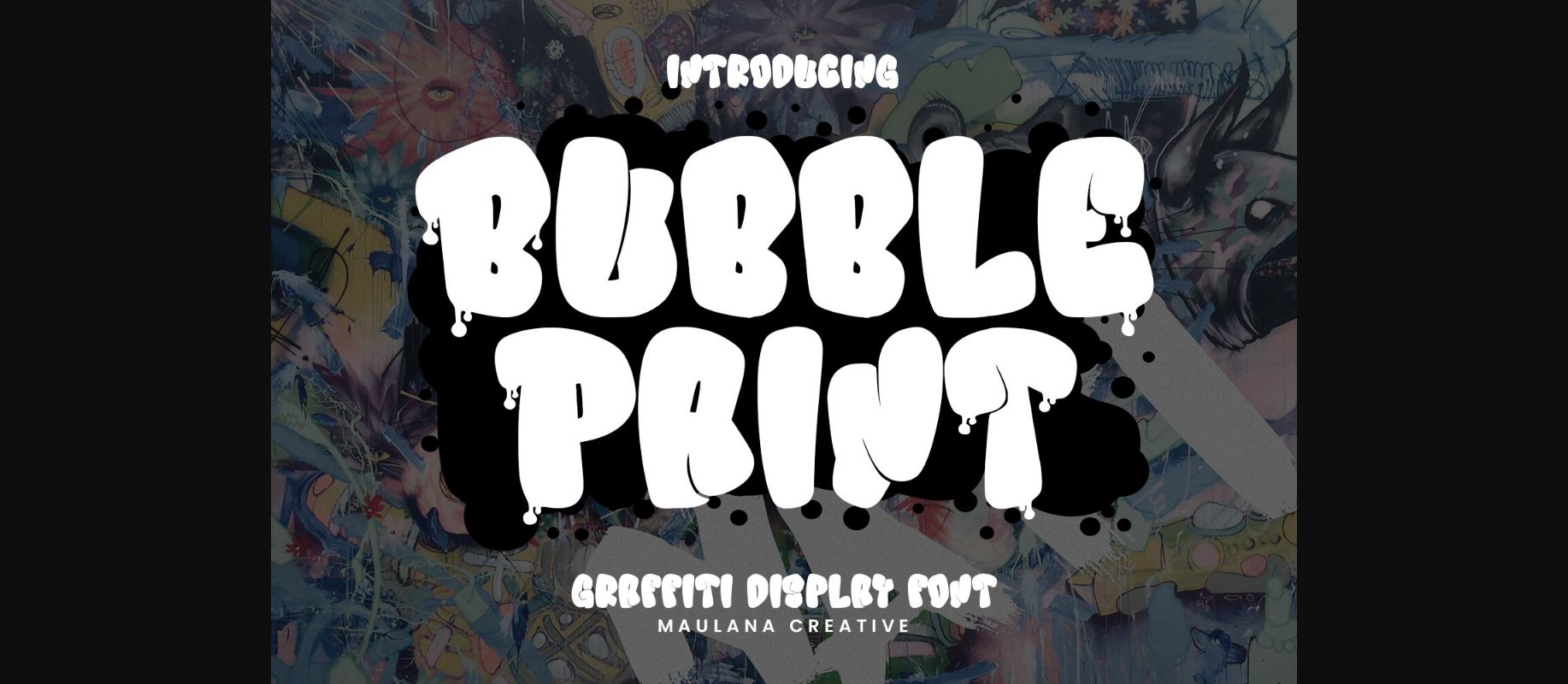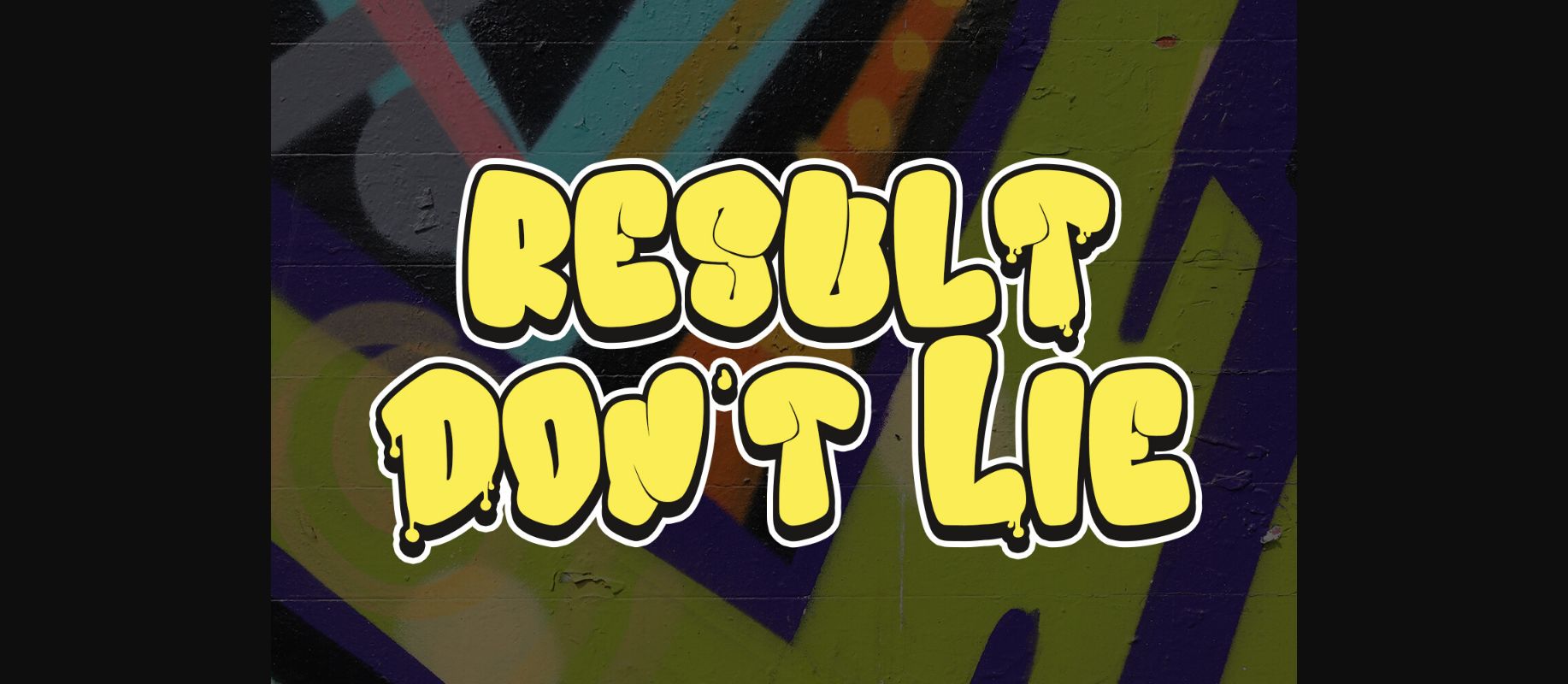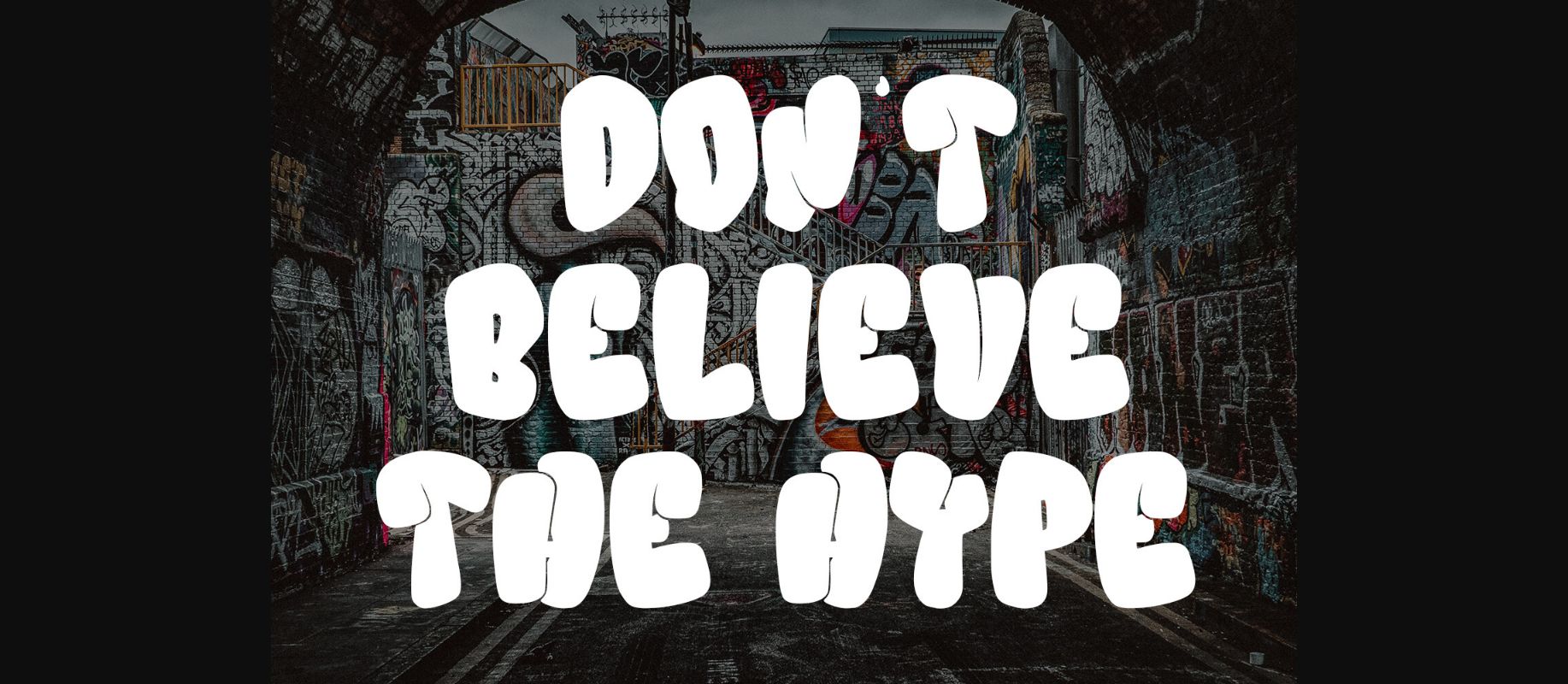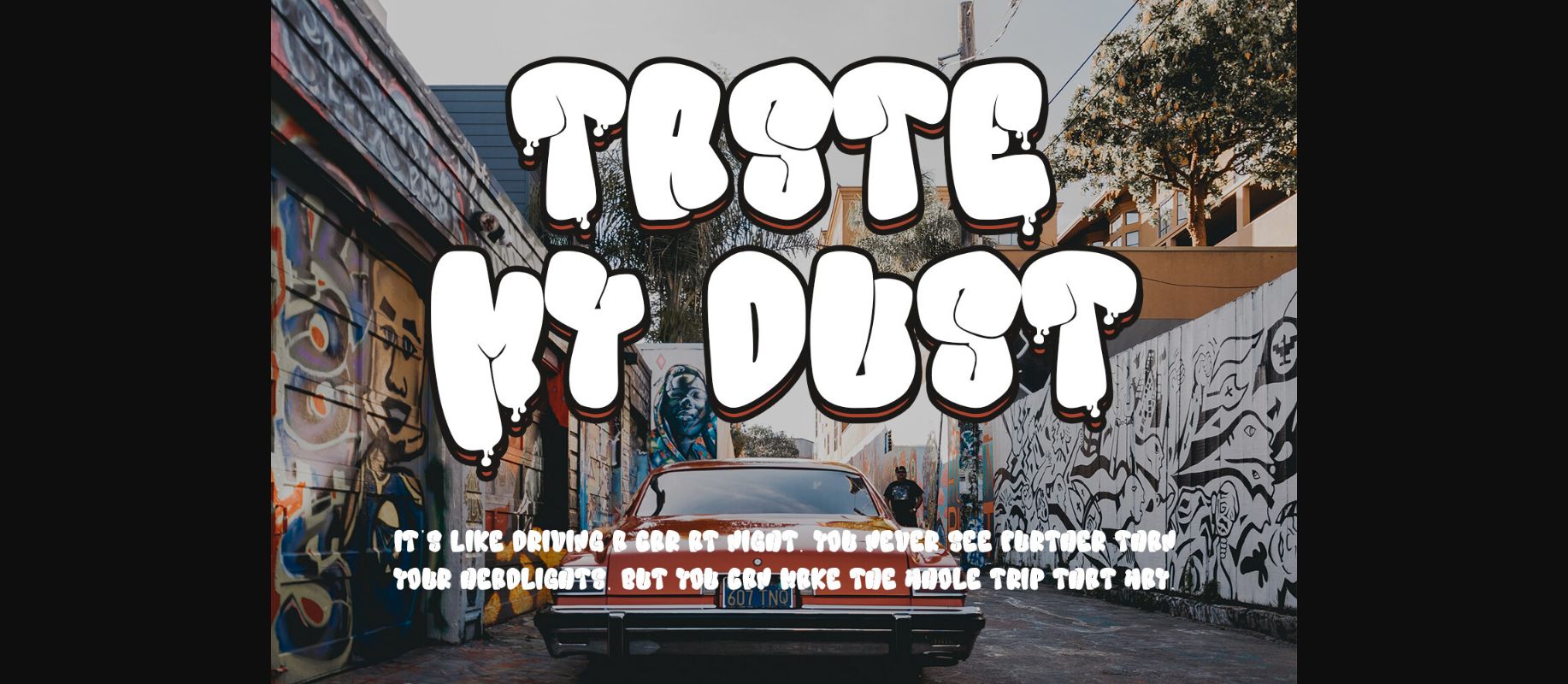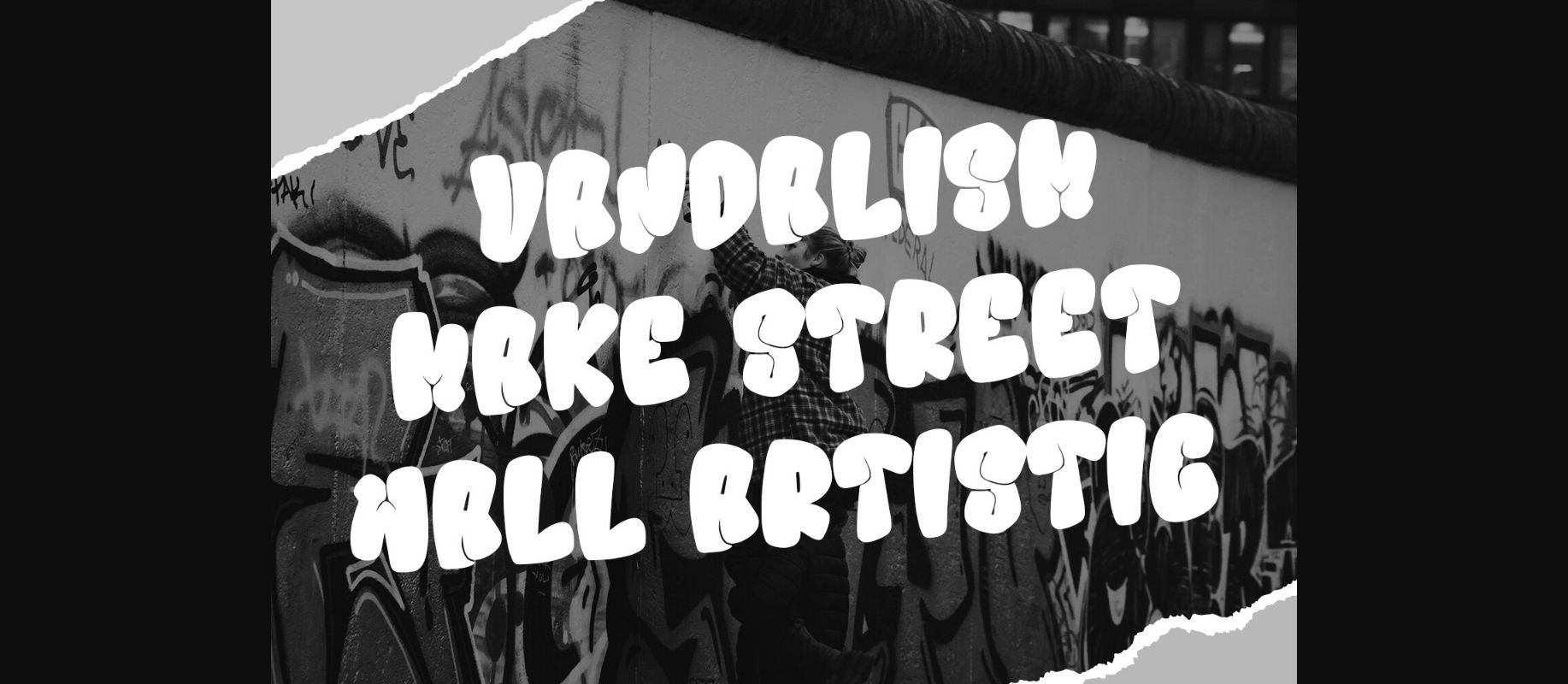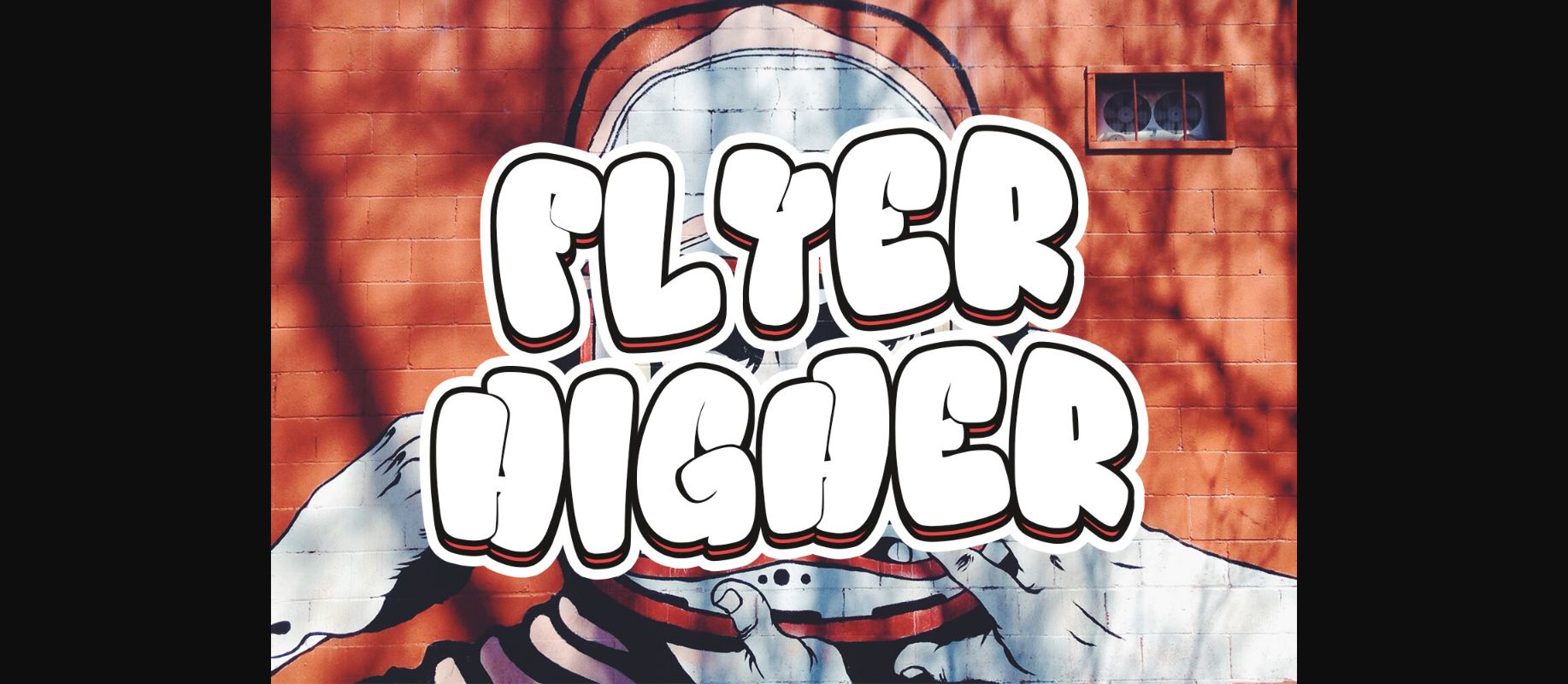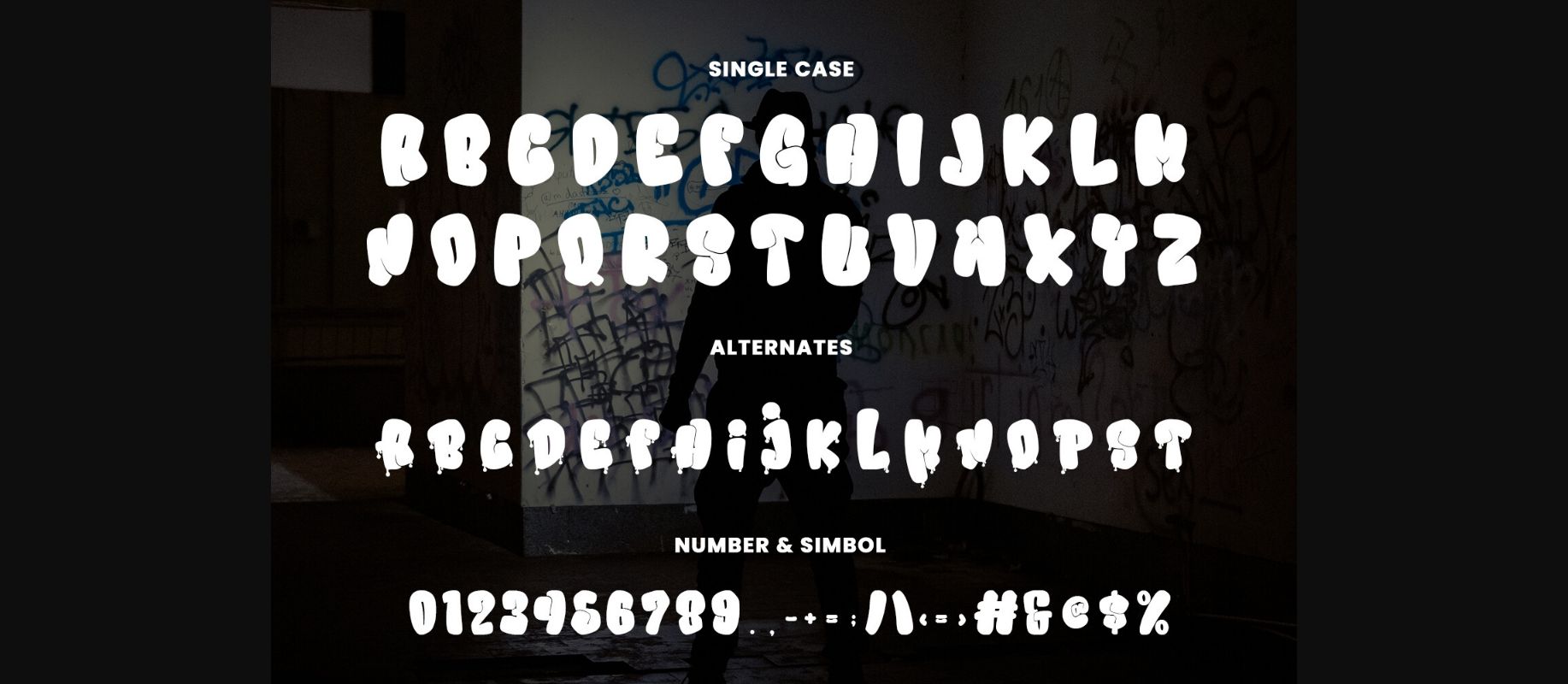
Bubble Paint Font
About Bubble Paint Font
Bubble Paint graffiti display font. Bold stroke, fun character with a bit of ligatures and alternates. To give you an extra creative work. Bubble Paint graffiti display font support multilingual more than 100+ language. This font is good for logo design, Social media, Movie Titles, Books Titles, a short text even a long text letter and good for your secondary text font with script or serif. Make a stunning work with Bubble Paint graffiti display font.